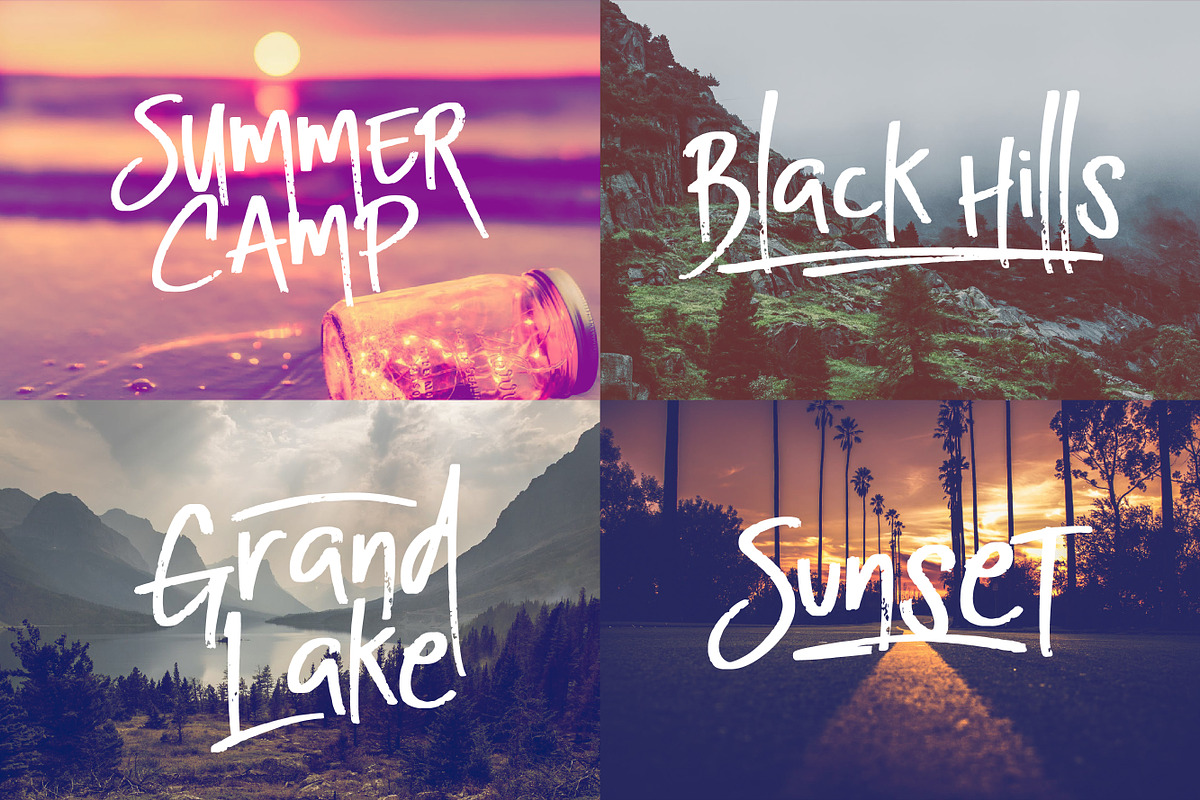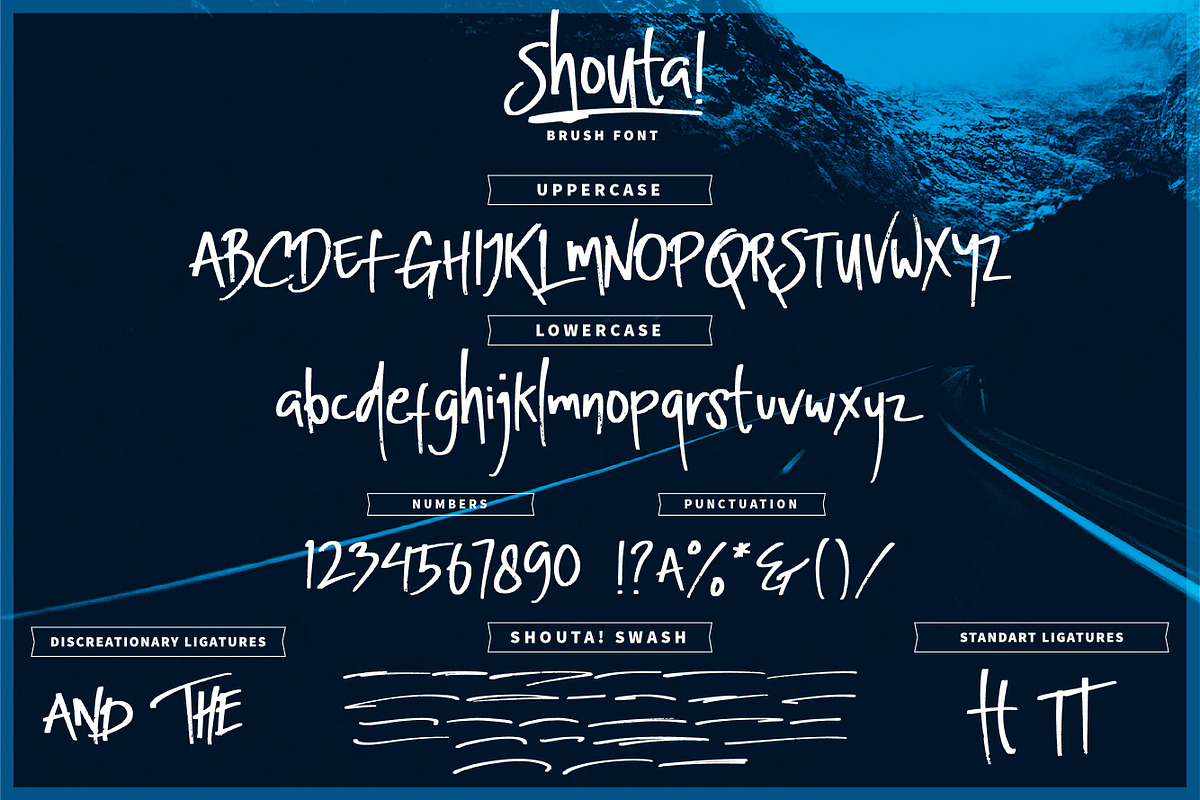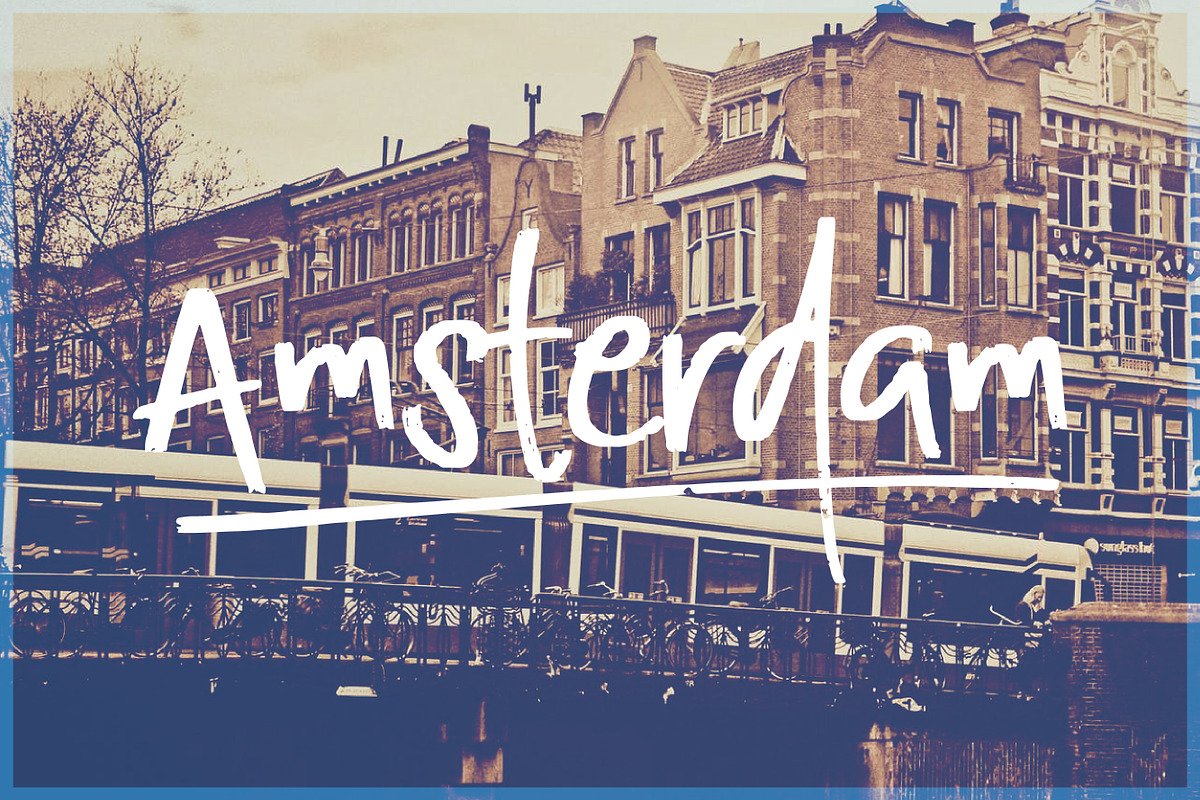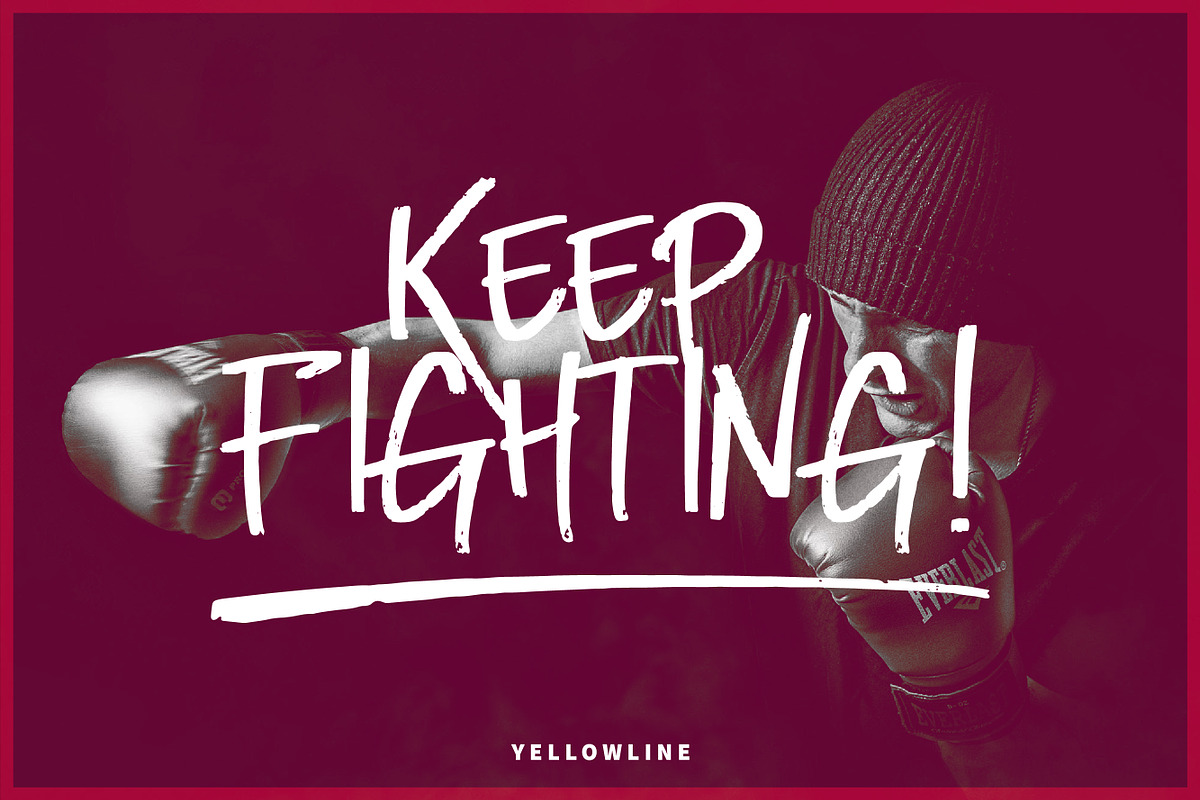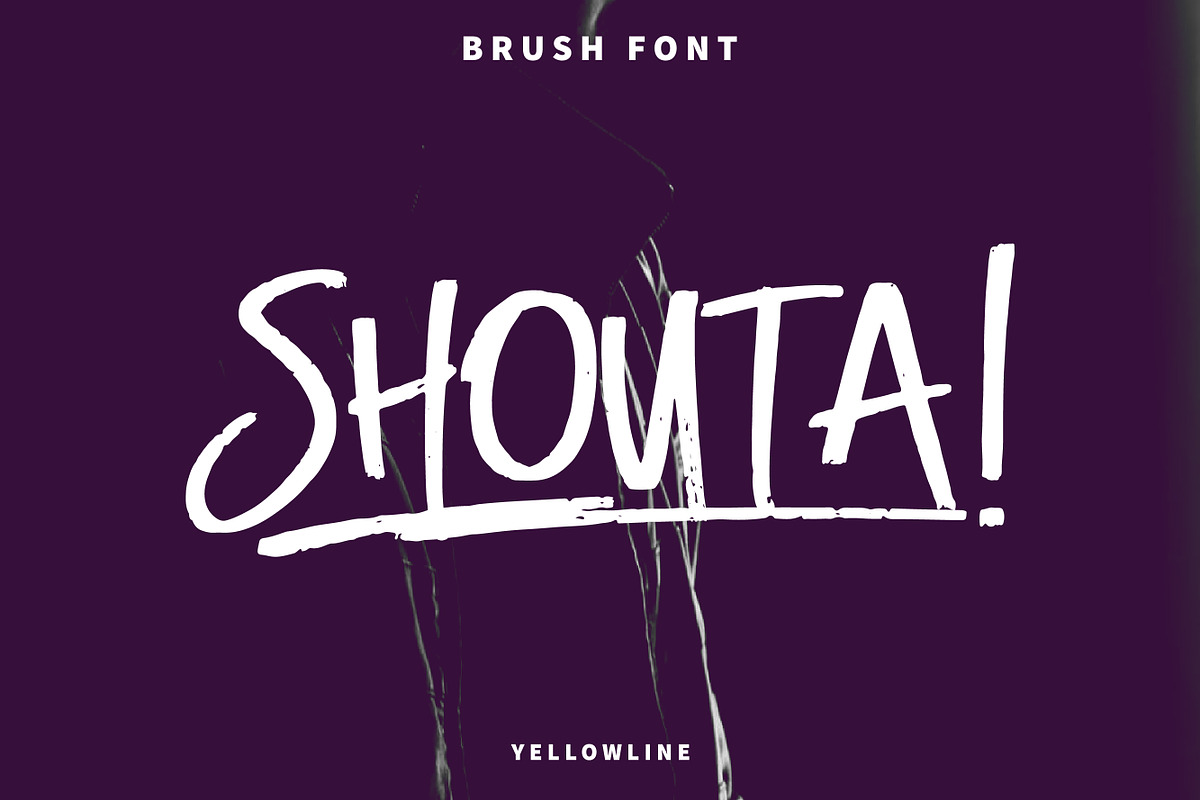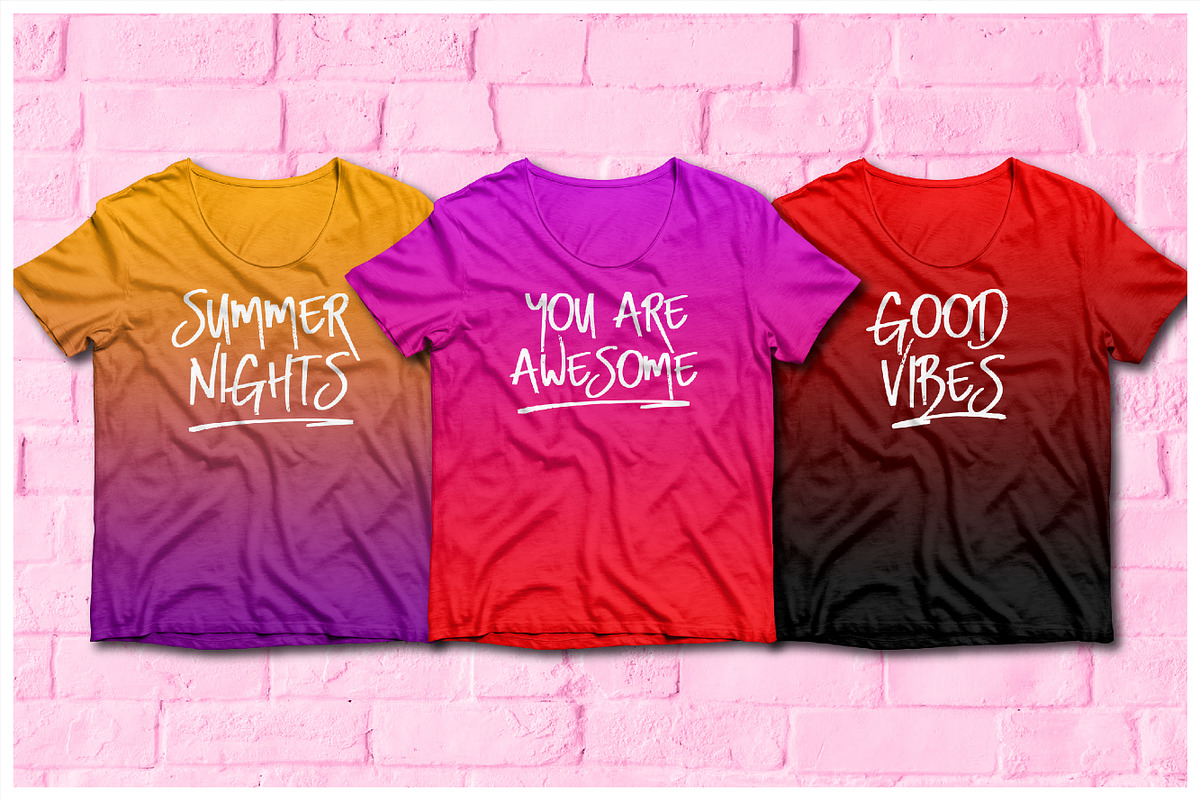
Shouta! - Brush Font
Introducing a new product called Shouta!, a handwritten brush font. Shouta! is perfect choice for your merchandise, clothing, apparel, label, stationary, e-commerce design, logo, packaging, and more design projects.
Number & Punctuations
Discretionary Ligatures (AND - THE)